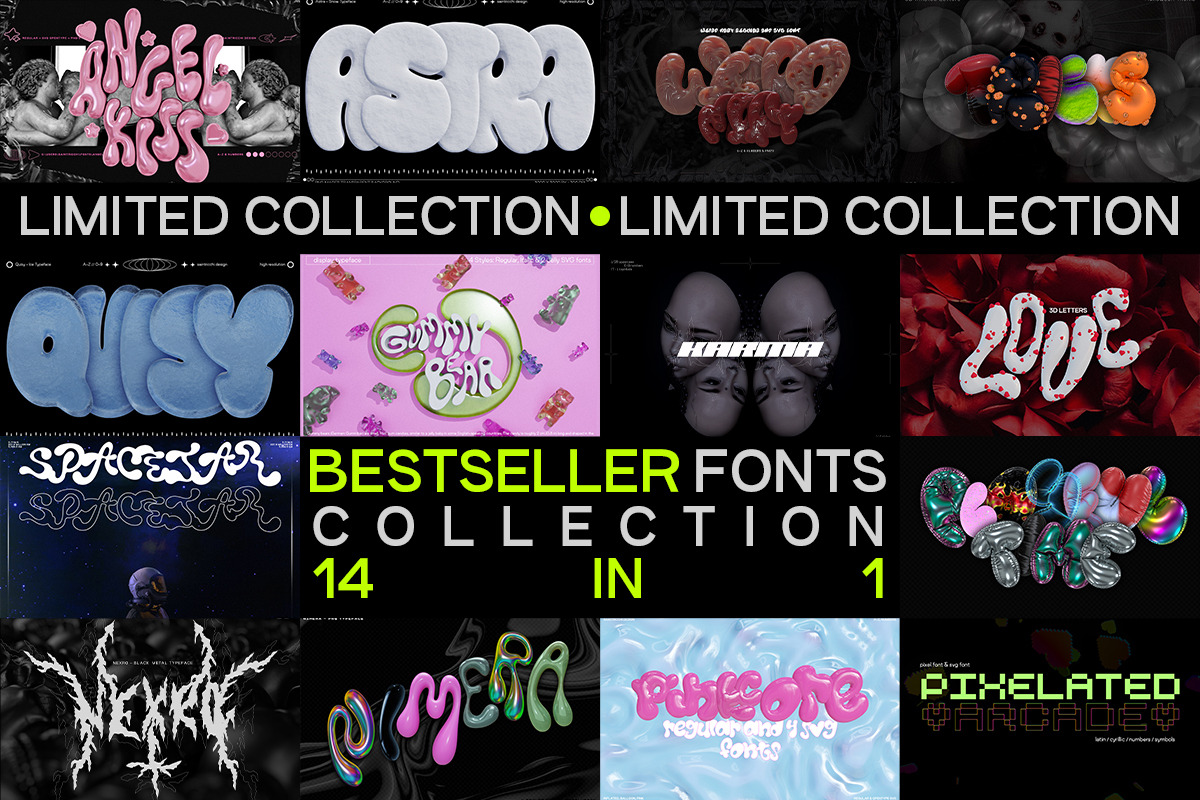
Discover our Limited-Time Bestseller Font Bundle—a carefully curated set of 14 versatile fonts designed to meet all your creative needs. Whether you're crafting standout logos, sleek branding, eye-catching headlines, or elegant print materials, this collection has it all.
- Playful Time - 3D Inflated Letters (https://saintricchi.com/PlayfulTime3DLetters)
- Tricks - Inflated Halloween Letters (https://saintricchi.com/Tricks)
- Spacejar - Liquid Display Font (https://saintricchi.com/Spacejar)
- Karma - Display Font (https://saintricchi.com/Karma)
- Gummy Bear - Font&SVG Typeface (https://saintricchi.com/GummyBear)
- Love - 3D PNG Letters (https://saintricchi.com/Love3DPNGLetters)
- Nimera - Chrome, Holographic Letters (https://saintricchi.com/Nimera)
- Angel Kiss - Liquid Display Font (https://saintricchi.com/AngelKiss)
- Astra - Snowy 3D PNG Letters (https://saintricchi.com/Astra)
- Cold - PNG 3D Letters (https://saintricchi.com/Cold-PNG3DLetters)
- Weird Mary - Halloween Font (https://saintricchi.com/WeirdMary)
- Pixelated Arcade - Typeface SVG&PNG (https://saintricchi.com/PixelatedArcade)
- NEXRO - BLACK METAL TYPEFACE (https://saintricchi.com/NEXRO)
- PINKCORE - FONT & SVG FONTS & PNG (https://saintricchi.com/Pinkcore)